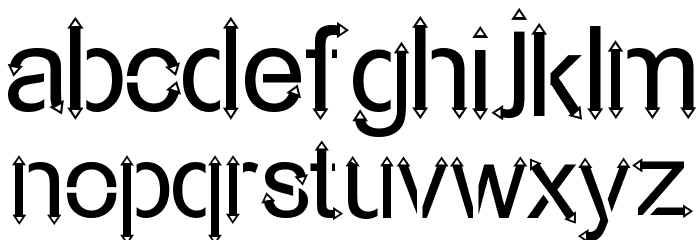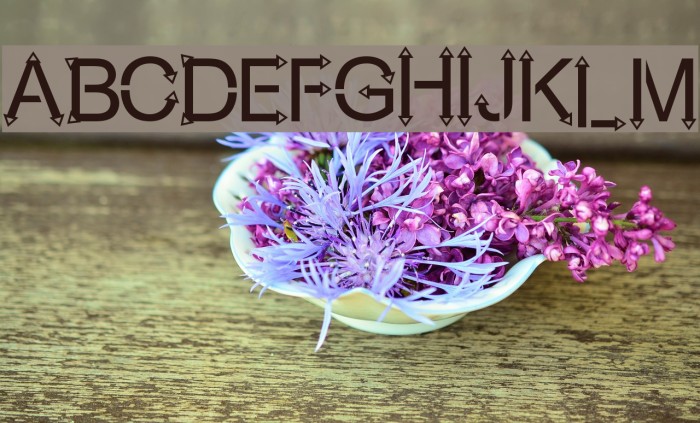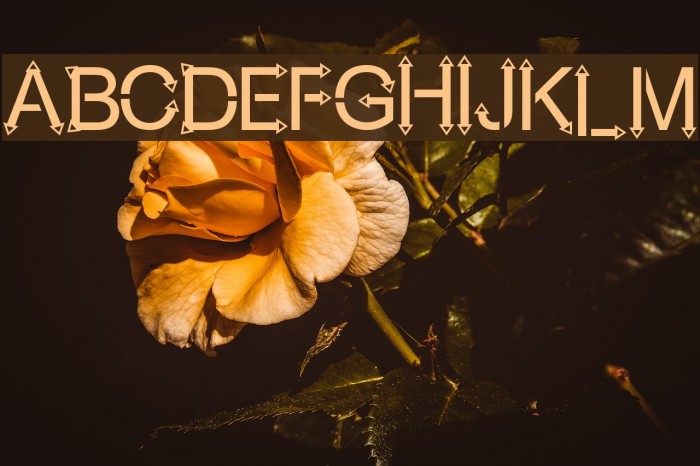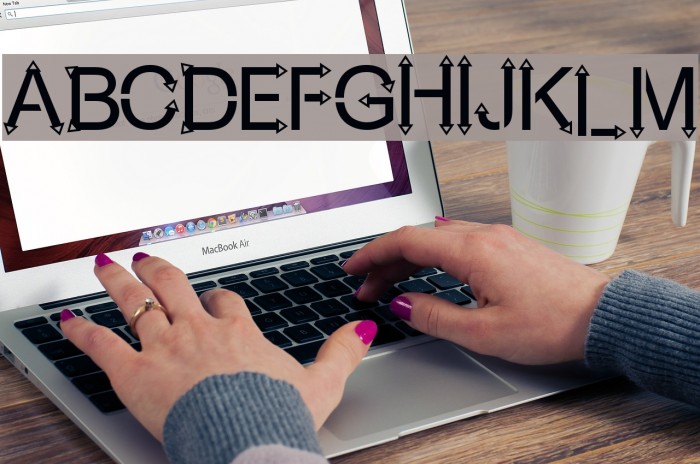
Rock Arrow Font
This font features a unique and striking design where each character is adorned with arrow motifs, giving it a dynamic and directional aesthetic. The uppercase and lowercase letters maintain a consistent style, with arrows integrated into the strokes, creating a sense of movement and energy. The characters are bold and have a geometric structure, which enhances their readability despite the decorative elements. The numbers and special characters follow the same design principles, ensuring uniformity across the font set. This font is ideal for projects that require a bold statement or a sense of directionality.
A bold, geometric font with integrated arrow motifs for a dynamic look.
- Proposed Projects: Ideal for branding, logos, posters, and any design needing a bold, directional theme.